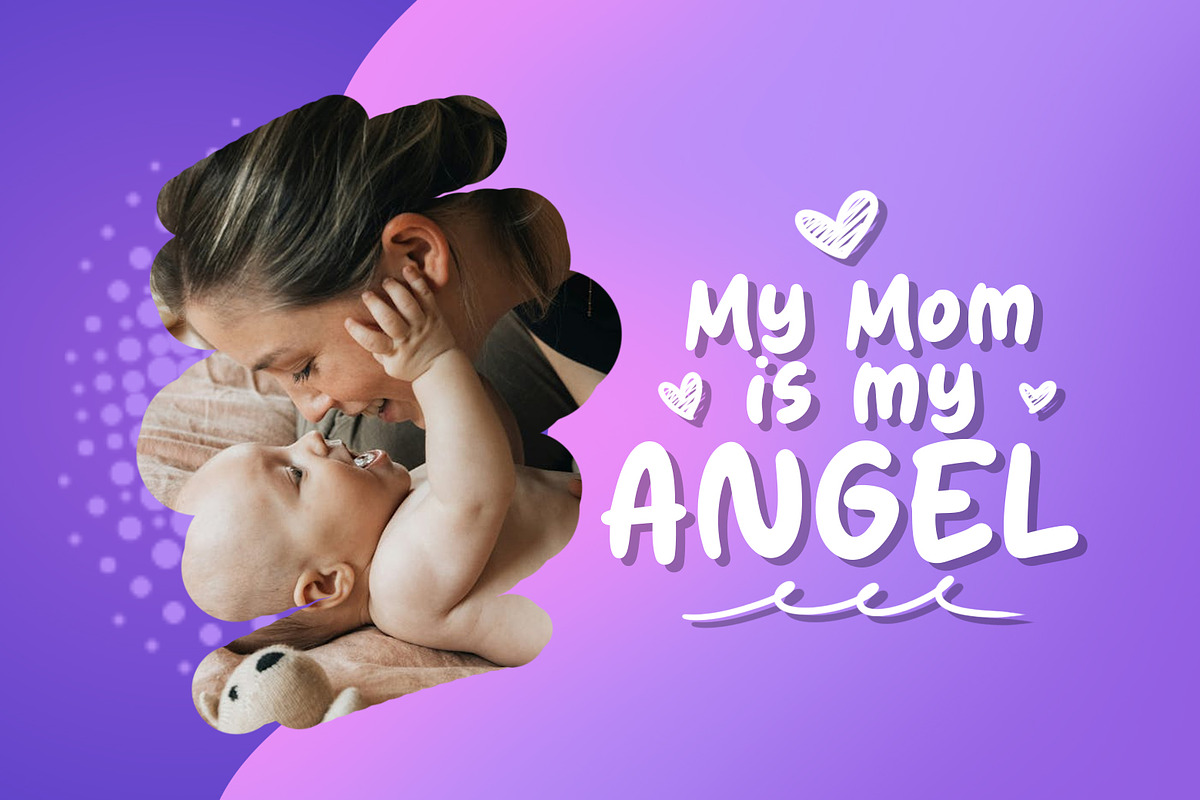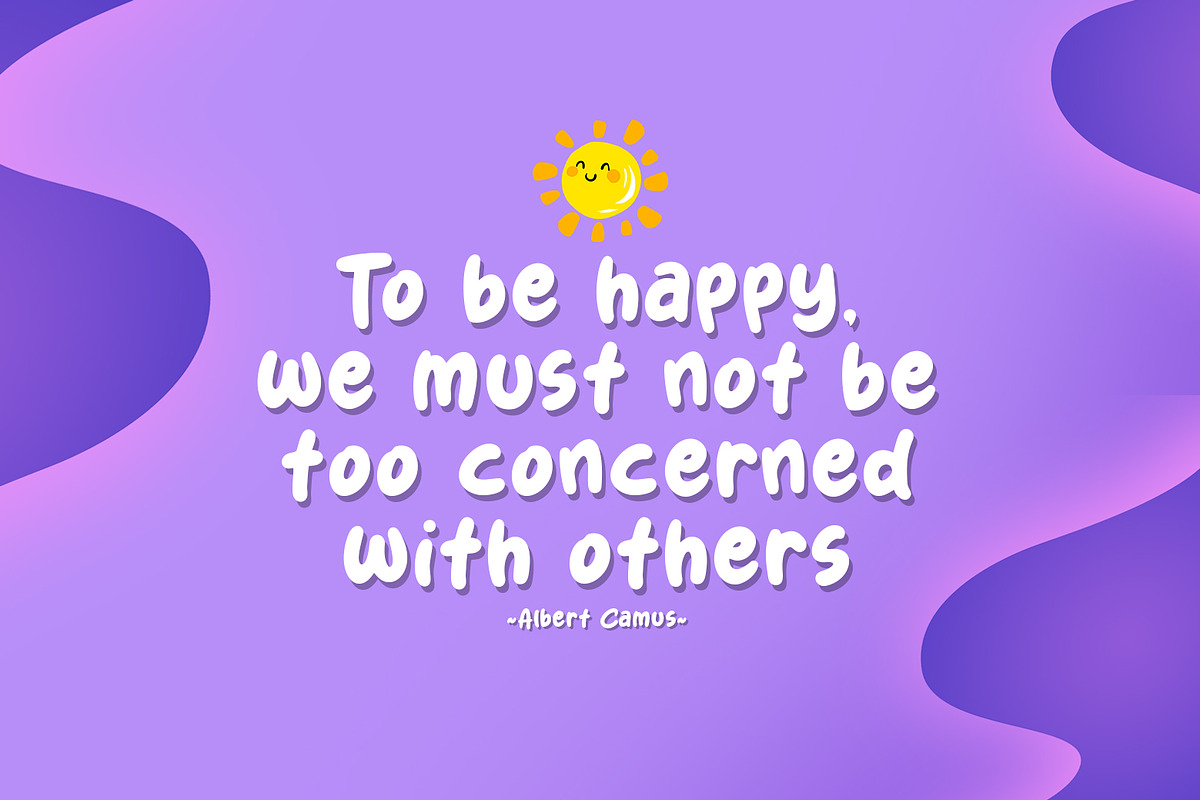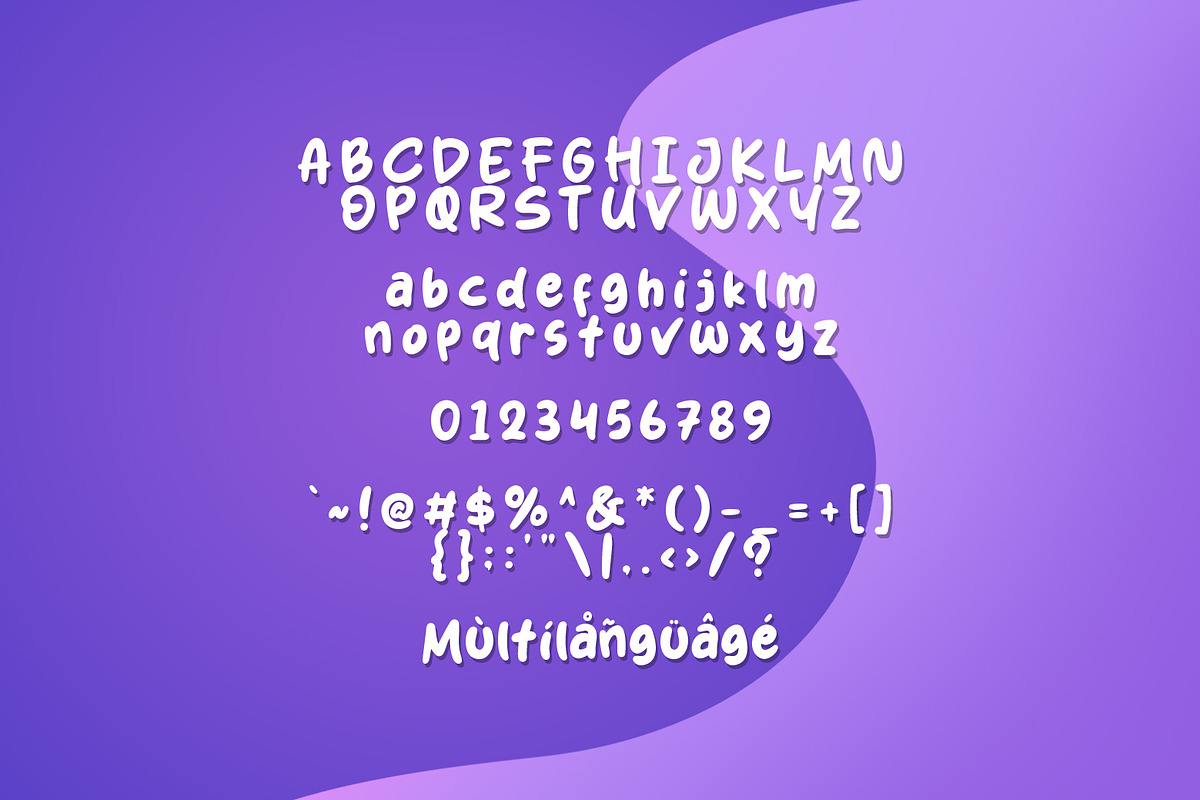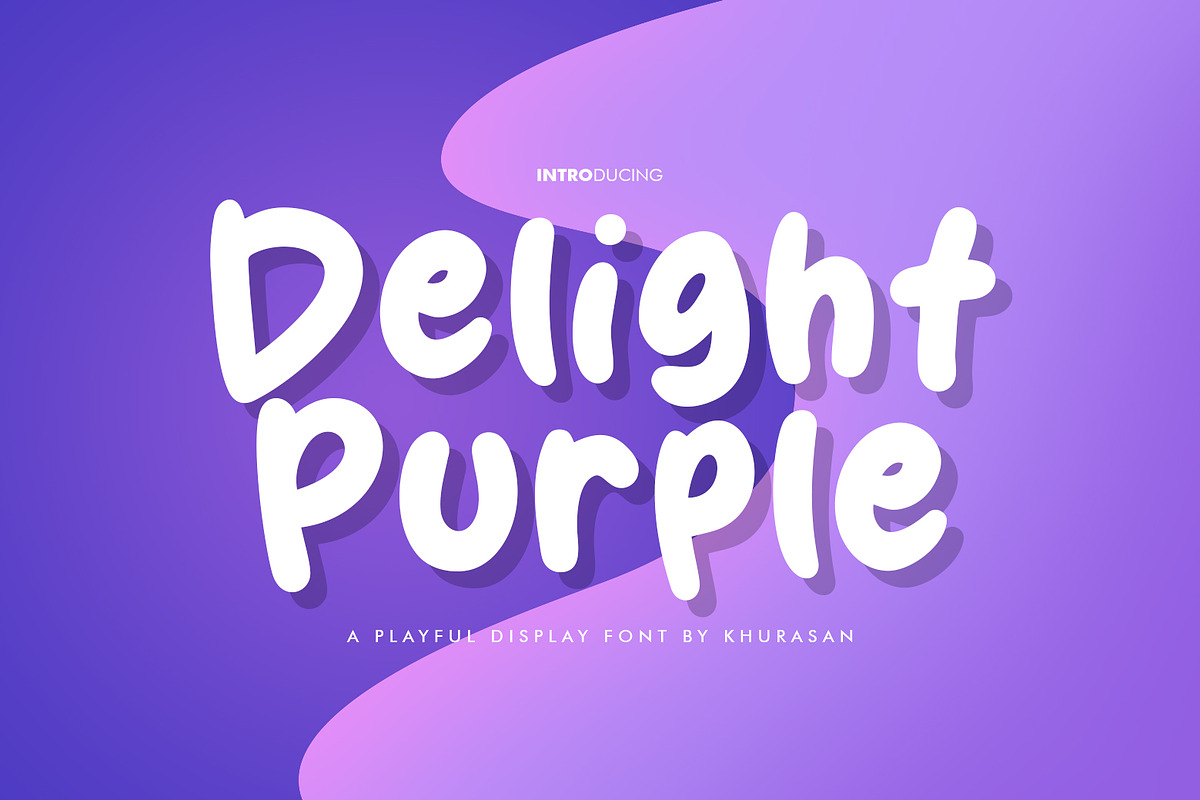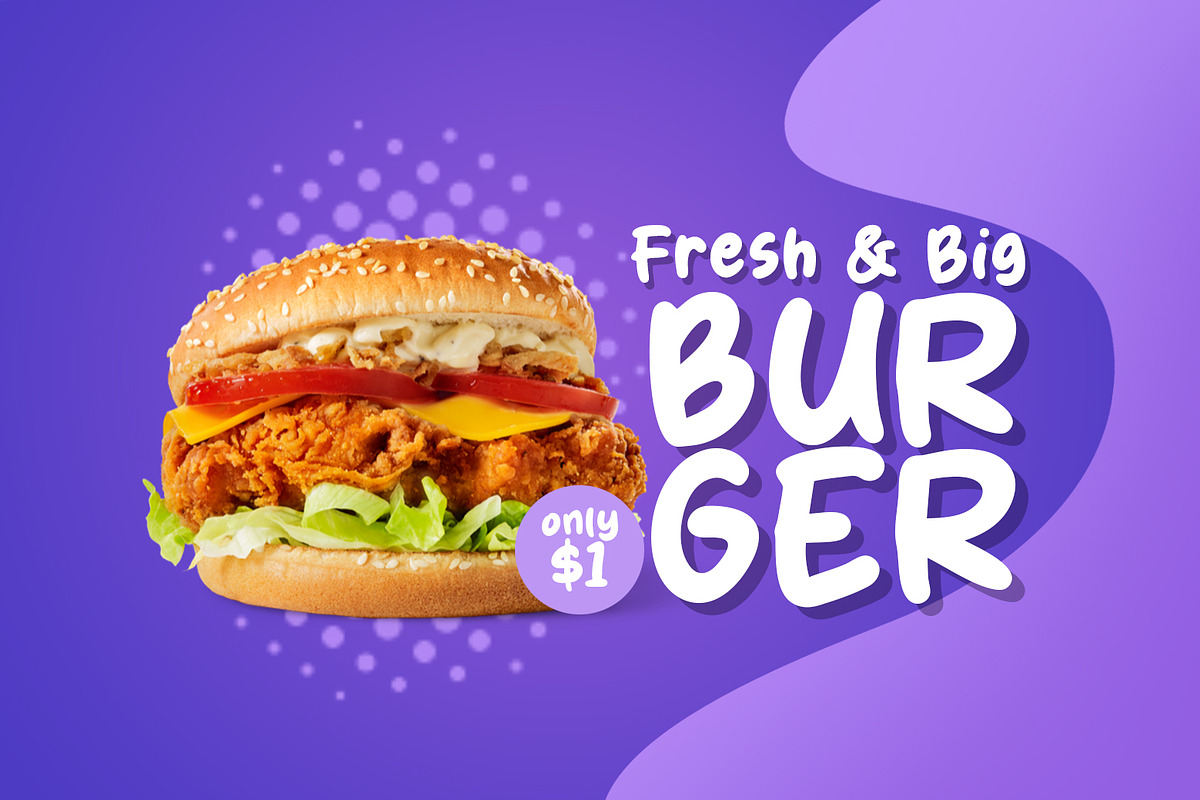
Delight Purple
Introducing, Delight Purple font a fun display typeface with cheerful theme for your fun project. Delight Purple font suitable for logo, branding, greeting card, poster and any design that you create.